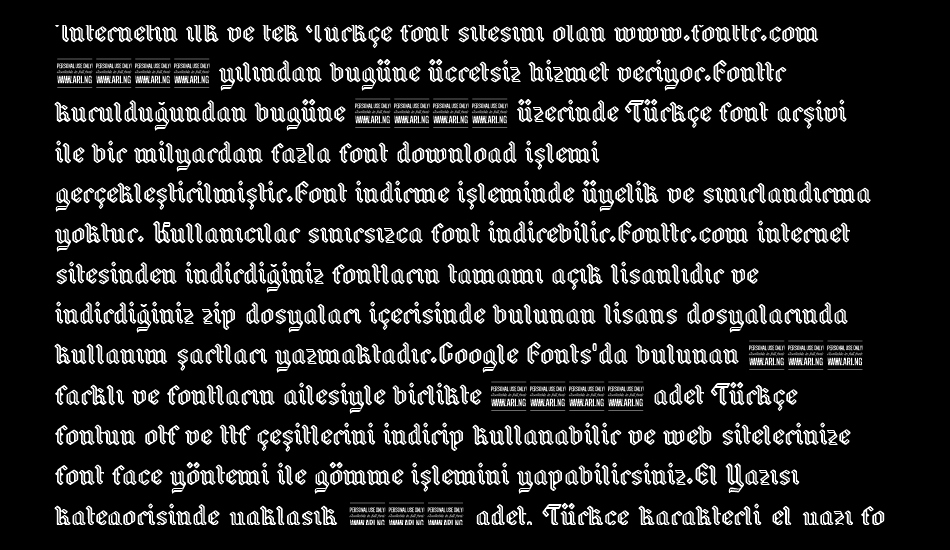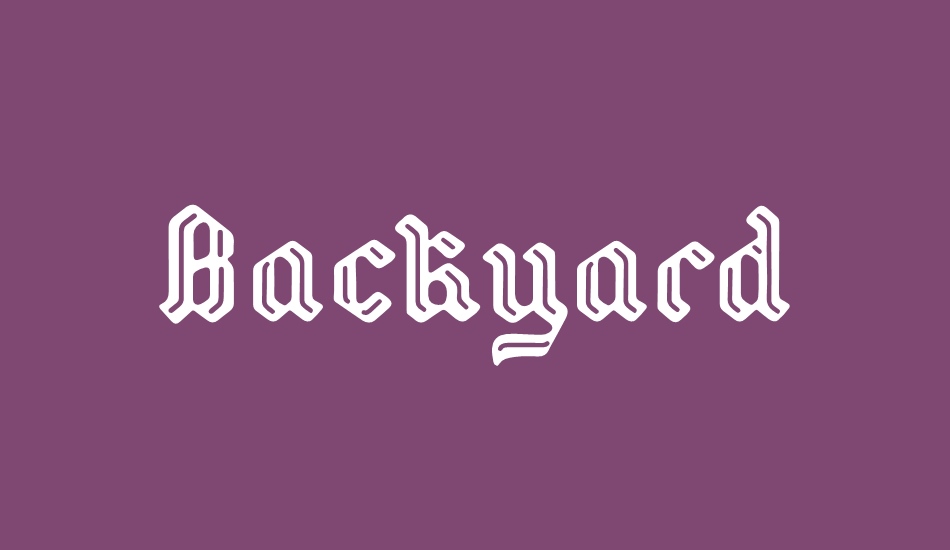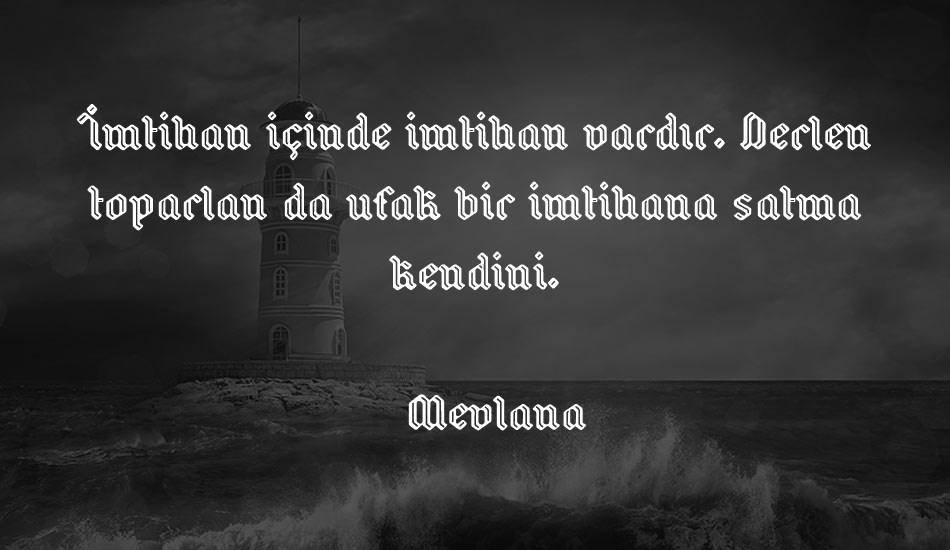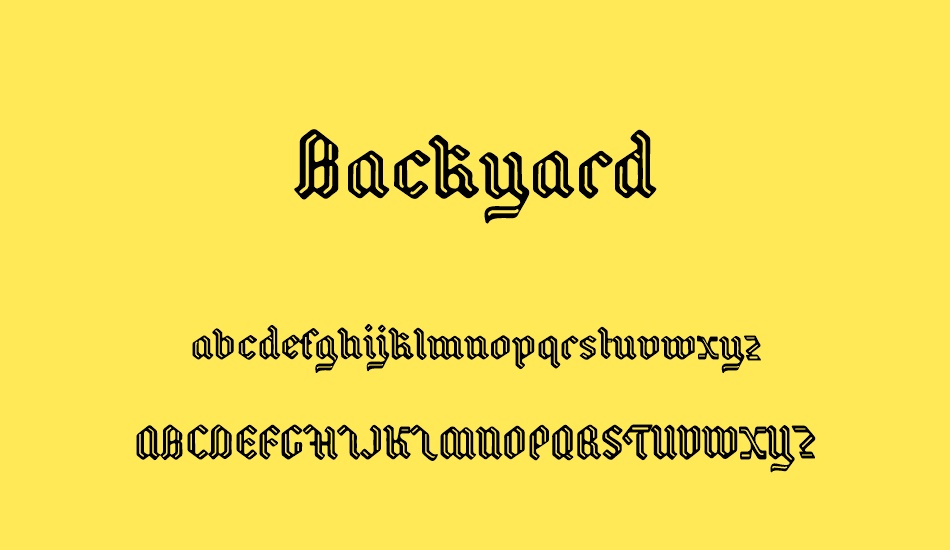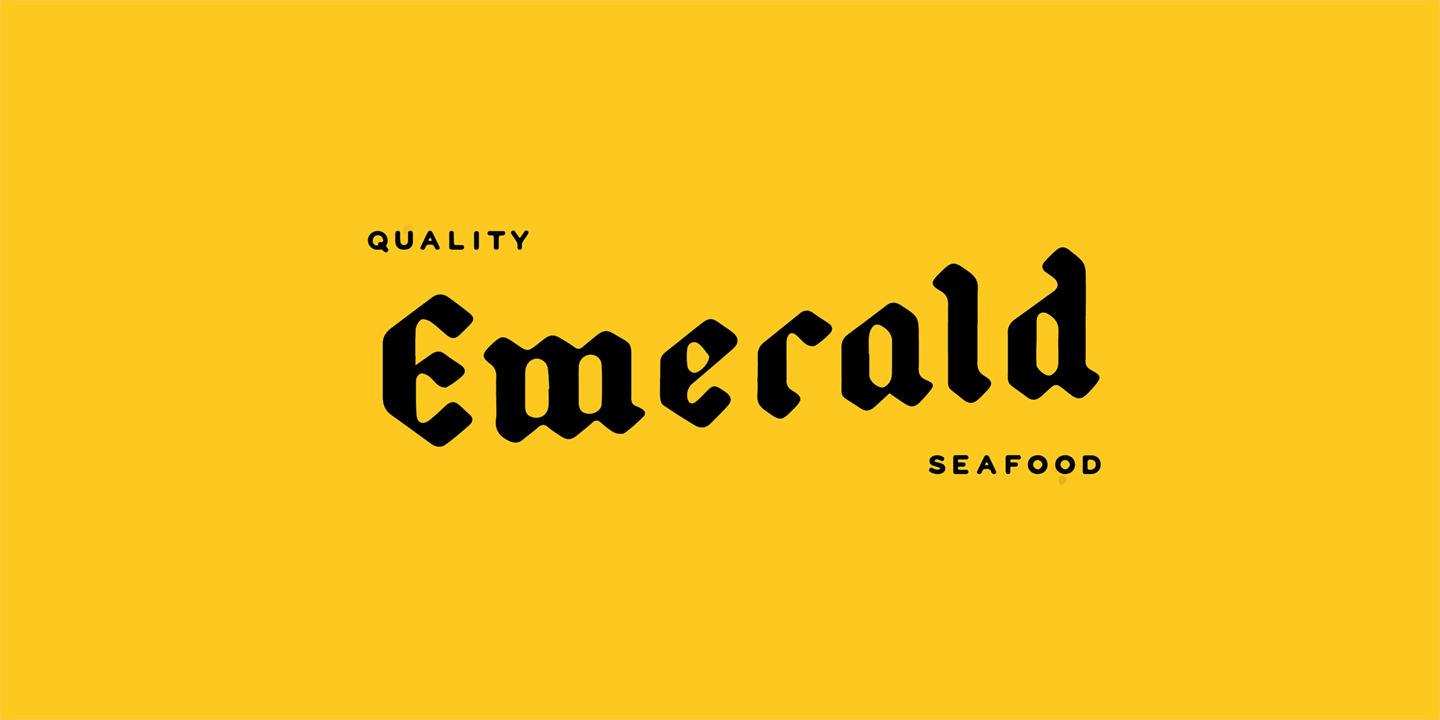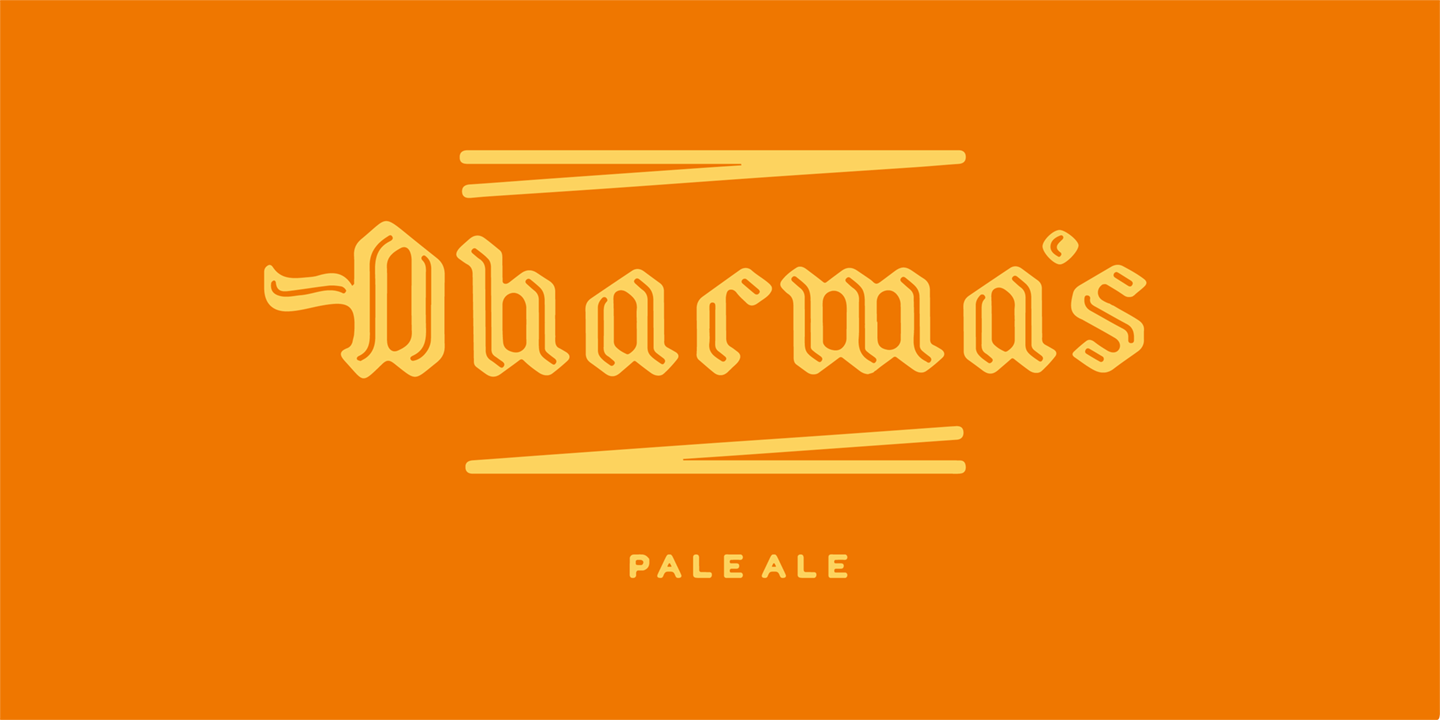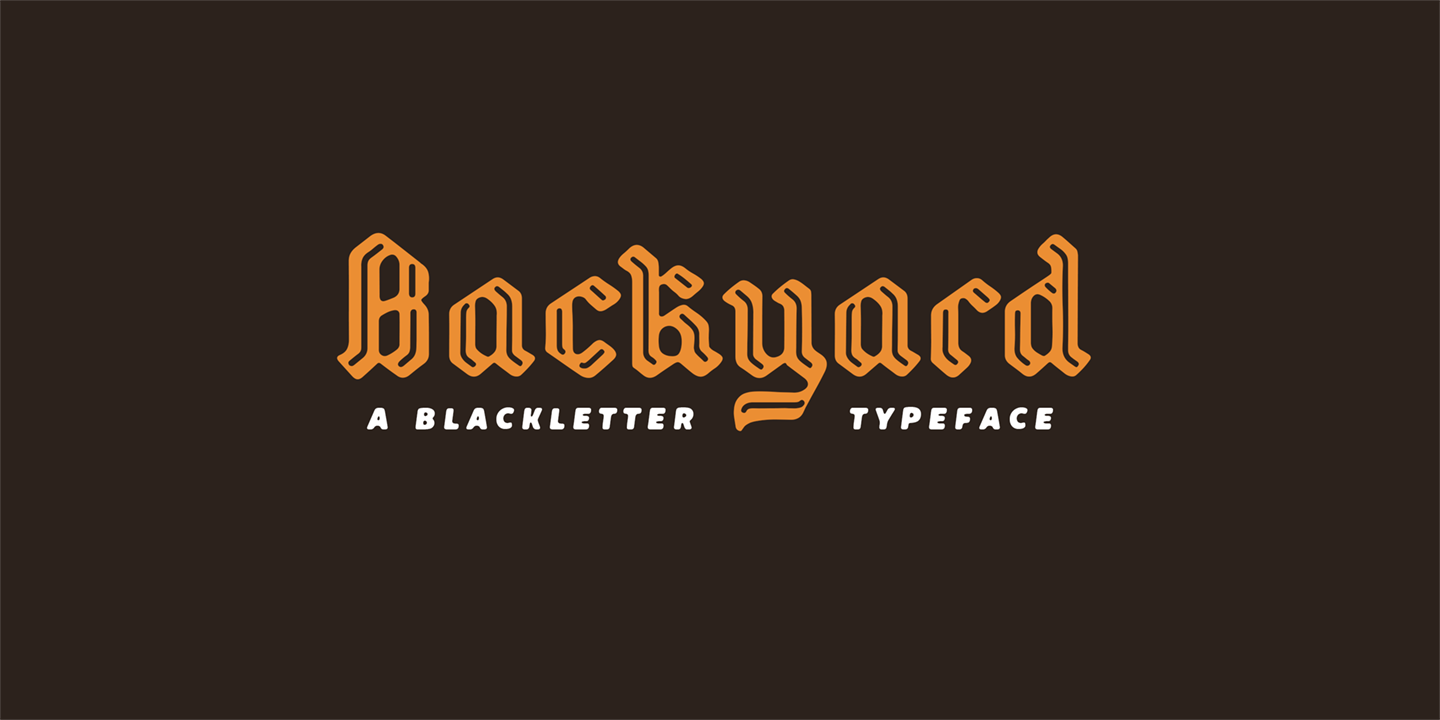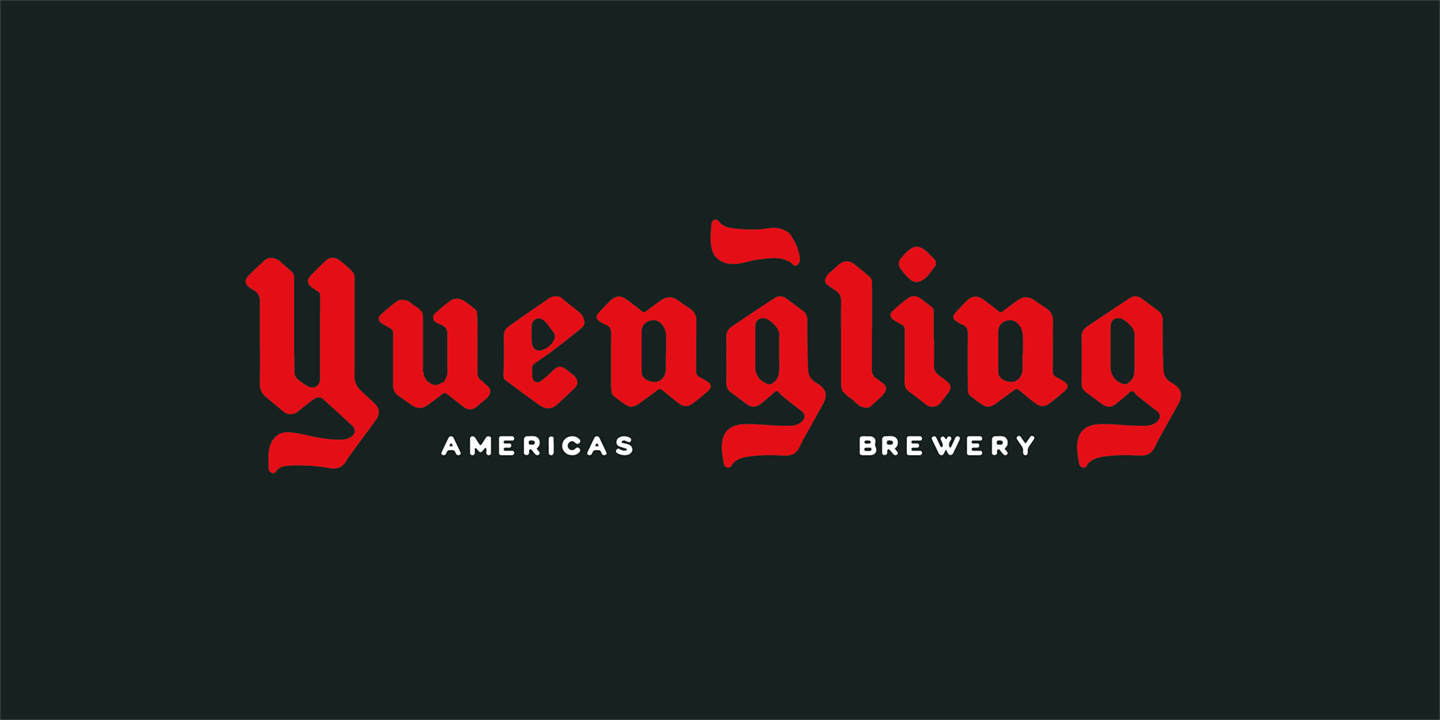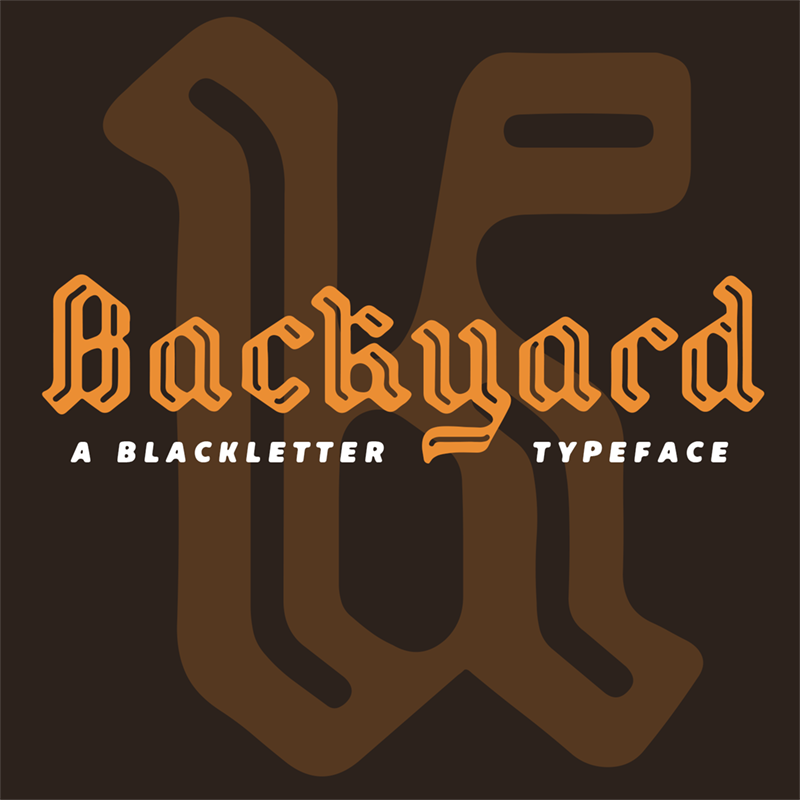
Backyard font
Backyard Font
Backyard is a blackletter type.
It's classic but rounded, which gives it a simple and clean appearance.
It comes in four varieties; the Regular style, the Black style and each of those styles as Italic.
Cooperatively designed by M?ns Greb?ck and Noah Kinard.